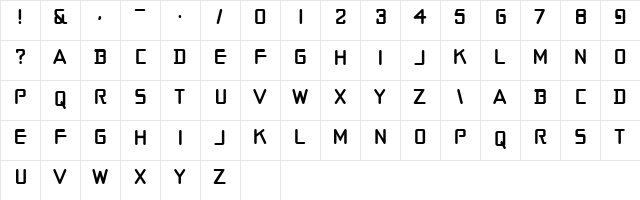
Moto A
Design Context for Moto Typeface
Moto is a composed and adaptable typeface that performs quietly and consistently across a wide range of design contexts.